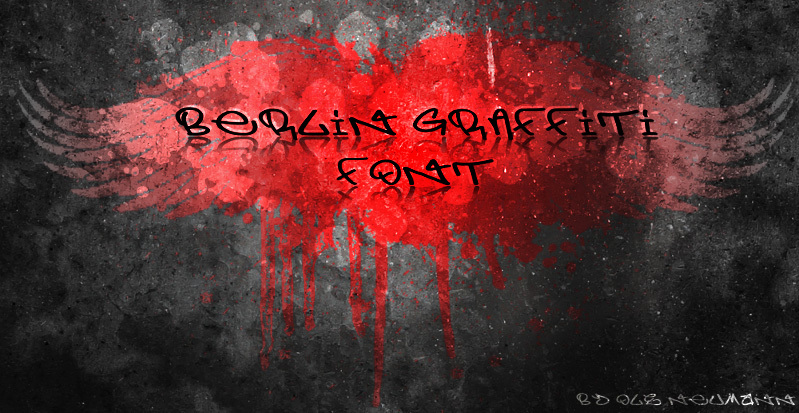
Berlin Graffiti, created by Ole Neumann of High-Logic.com, is a free graffiti tag font with the quick motion of a marker. Its letters swing between broad loops and abrupt angles, with changing stroke widths and a deliberately uneven line. The forms look improvised rather than carefully drawn.
Youth fashion and streetwear are the clearest markets for this lettering. Its tagged look also fits music posters, skate merchandise, and event graphics, where the writing can shape the brand mark.
Graffiti/tag font.